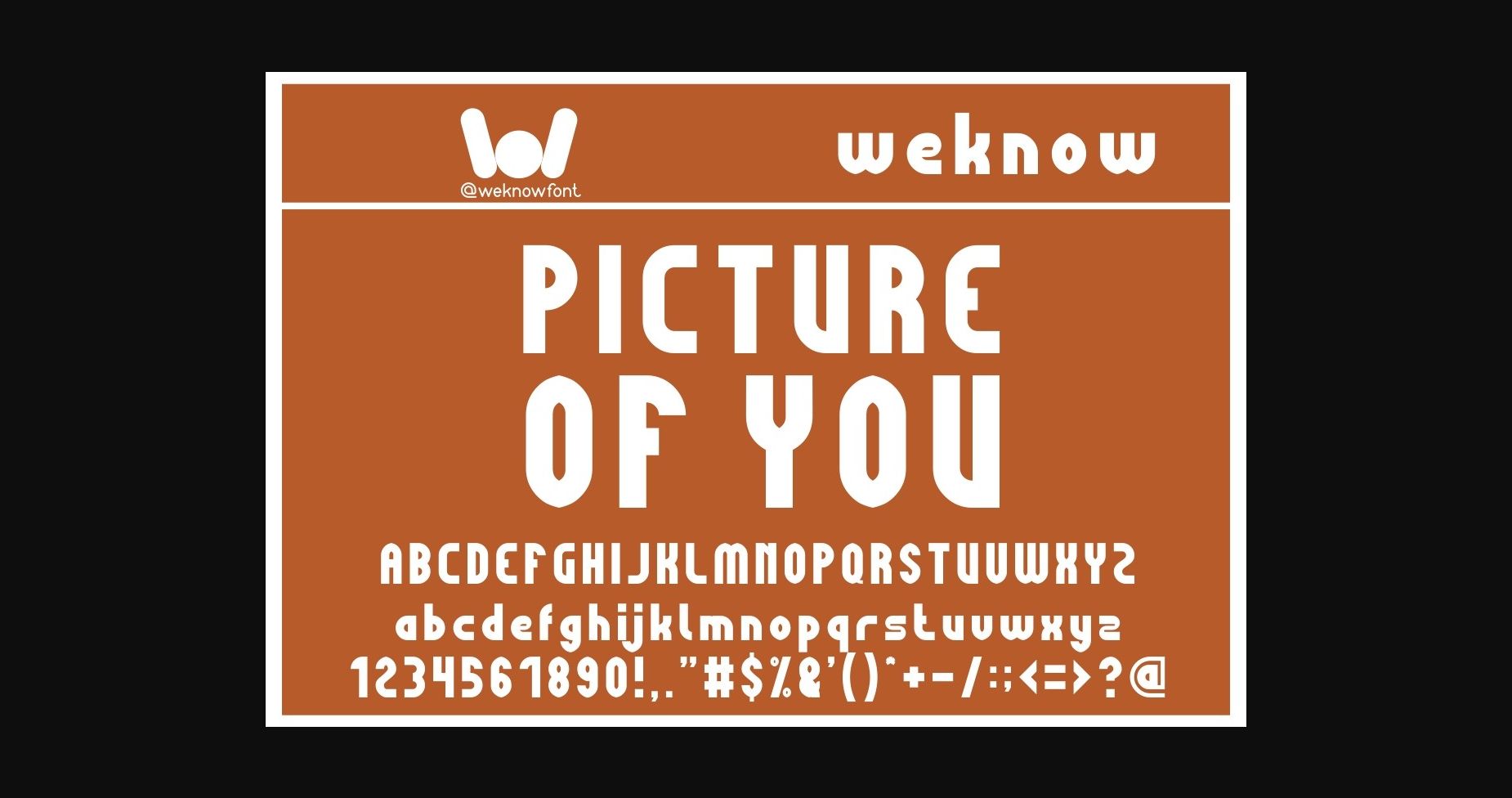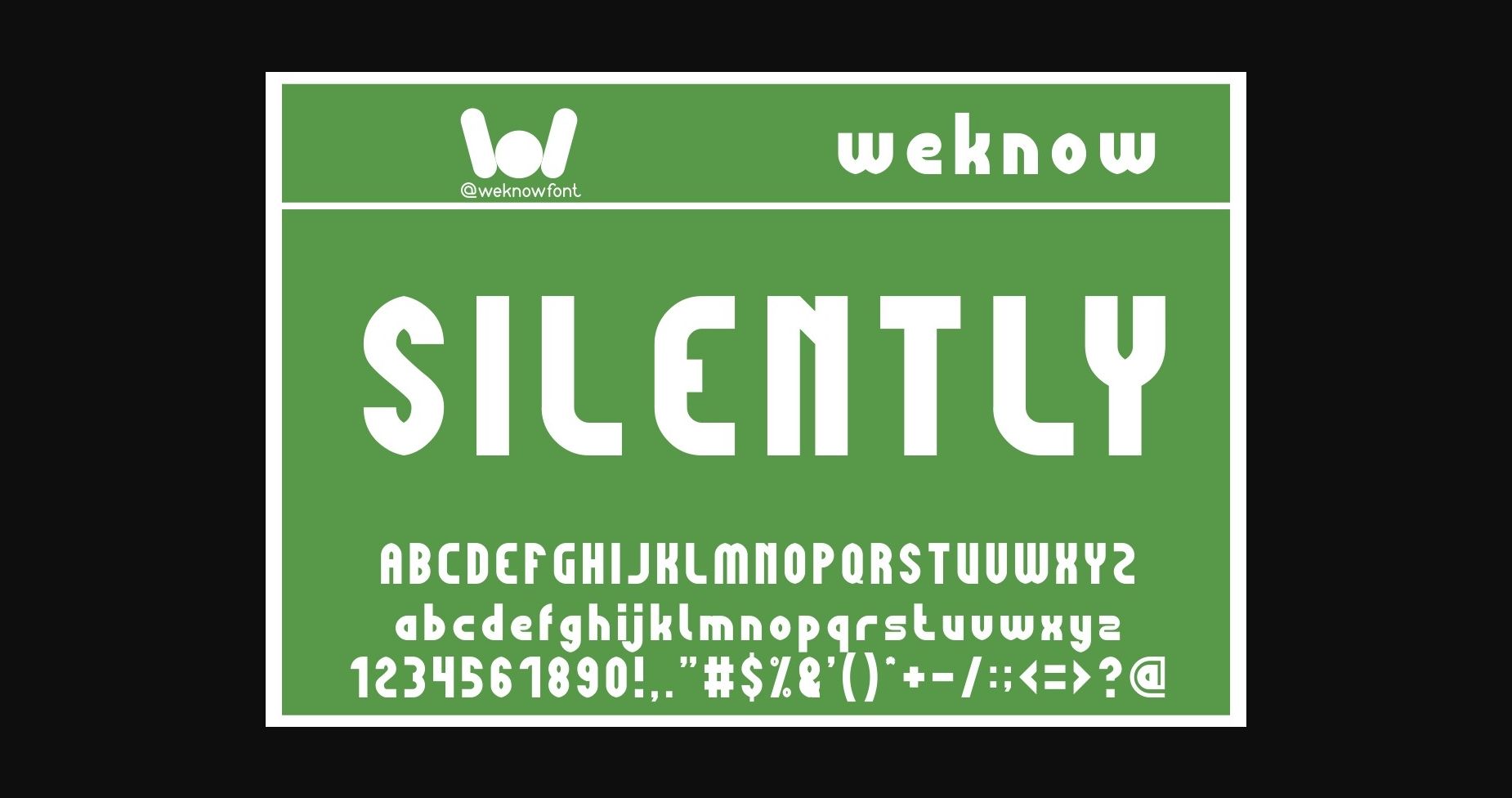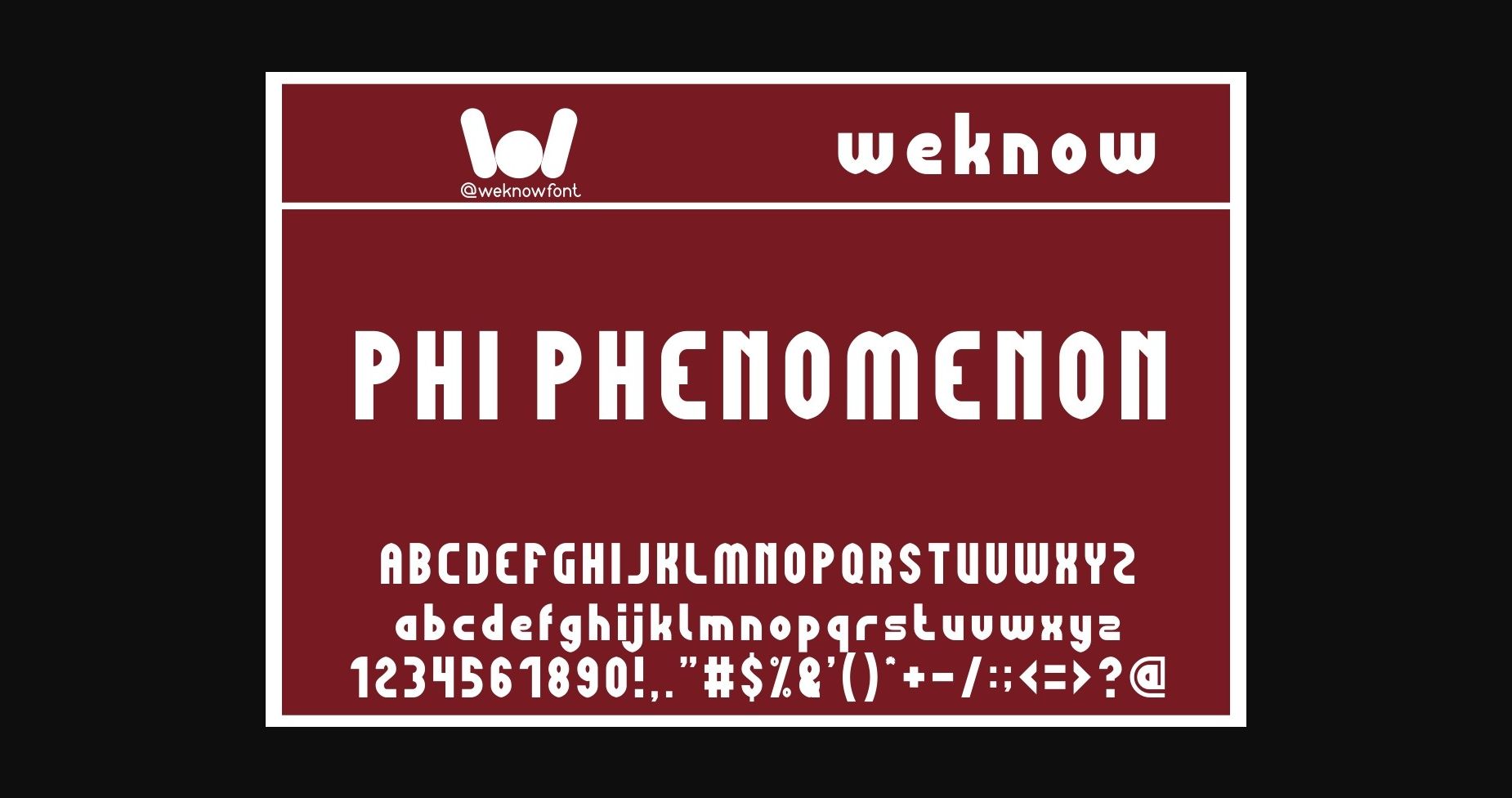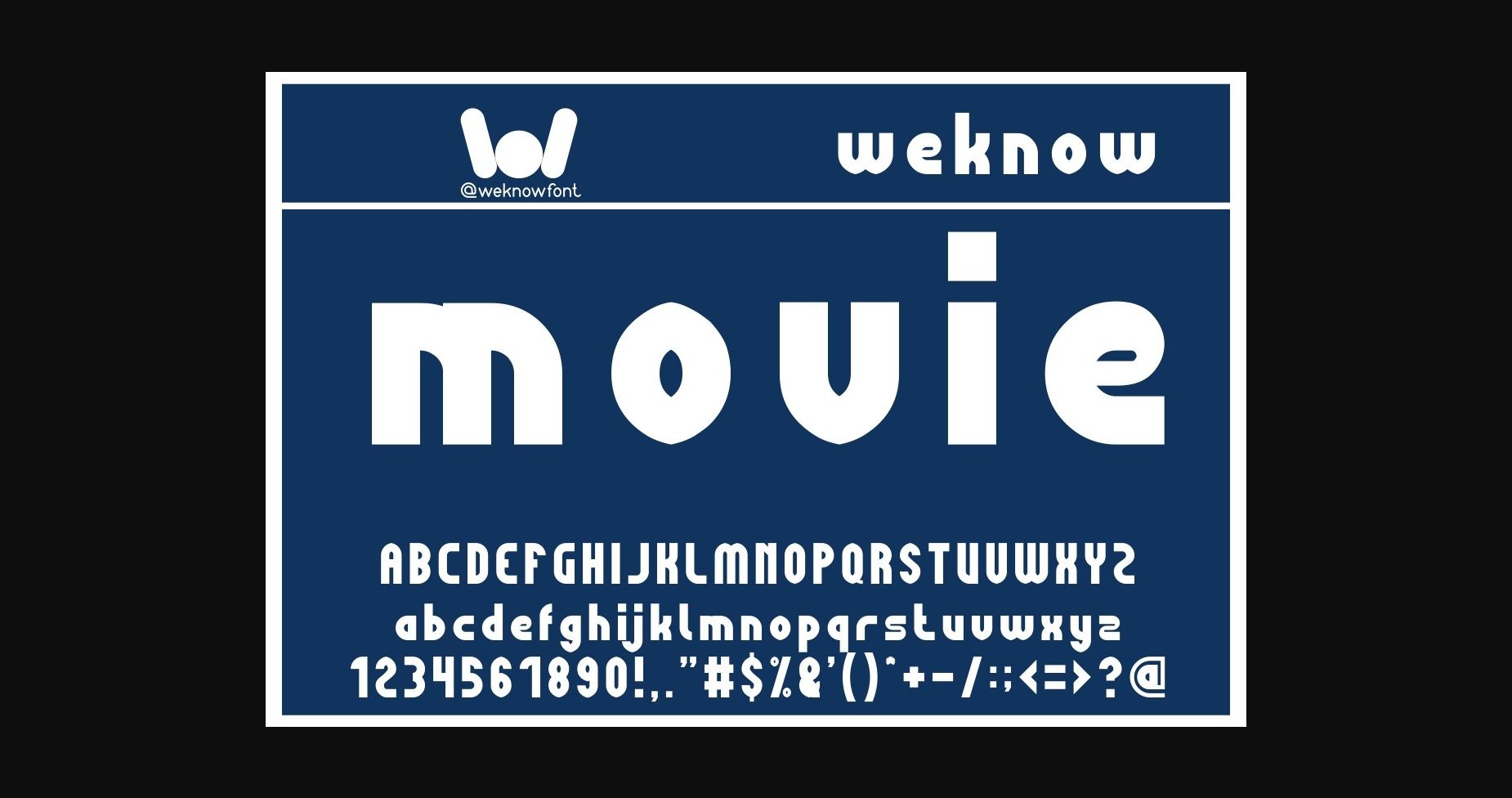
Picture of You Font
About Picture of You Font
Picture of You is a fancy sans serif font suitable for logos, logotypes, headlines, corporate identity, brand identity, apparel industry, posters, music, movies, games, magazines, books, comics, cartoons, YouTube, Instagram, websites, or any of your creative design projects.